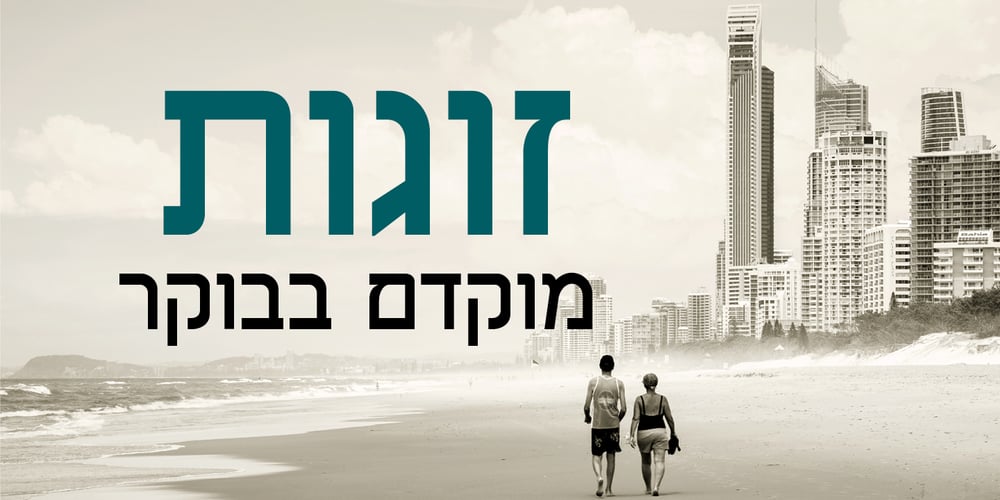
Aharoni Polished MF Font Family was designed by Zvika Rosenberg and published by Masterfont. Aharoni Polished MF contains 3 styles and family package options. This revival of the old Aharoni adds a unique polished touch with less contrast. Suitable for many uses as signage, headers and short paragraphs.